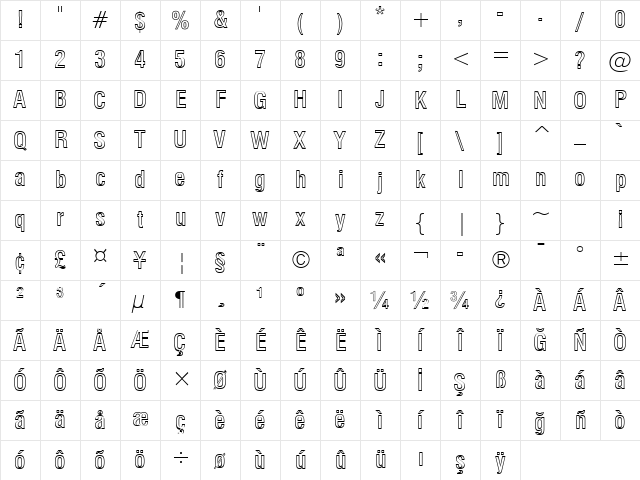
Swis721 CnOut BT Bold Outline
Style: Bold Outline
Design Context for Swis721 CnOut BT
Swis721 CnOut BT is built around its visual character rather than neutral utility - its distinctive forms are designed to make an impression at display sizes. Its bold stroke weight gives it real presence on the page.
Font Pairing: Pair with a clean neutral sans-serif for body copy to let Swis721 CnOut BT's character lead without overwhelming the composition.
Pro Tip: Use Swis721 CnOut BT exclusively at display sizes - it was designed to be seen, not read at length. Let a neutral companion handle body copy.